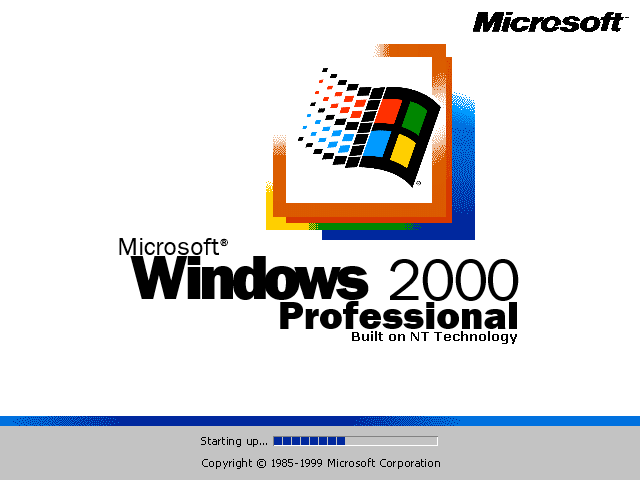
What is the point of this font? Sure, it's obviously been meticulously copied, but really, what can this do. It's not original, Tahoma comes with Windows for free, and can even be freely downloaded from Ubuntu repositories (although Ascender sells it too, derp). Not trying to be mean, but please hide this.
While this certainly isn't pushing the bounds of creativity, the 1,460 characters shows a high level of dedication. :)
The creator of this appears to be a young fontstructor. Copying a font is a great way to learn the ins and outs of creating your own. Discovering what works, what doesn't, etc.
Keep working...
@Umbreon126 // Wait…can't ETHproductions do whatever they want? I'm guessing that this wasn't meant to be used in place of Tahoma, and that it was just an exercise in patience and technique. What's more, I am extremely curious as to why it would matter to you if they hid it or not. It's not harming anyone…
It's a great work to me. 10/10.
Thank you for your encouragement, aphoria, demonics, and elmoyenique. I just started fontstructing less than a month ago. I’m really interested in pixel fonts, and copying is good practice for beginners at almost anything, so I decided to try it here. Hopefully I’ll be able to create my own pixel fonts soon.
Any bold?
This is so cool! 11/10! I like what you did there!
I love this! It has such a different feel from full-pixel Tahoma.
I feel good looking at this font :)
This is actually incredibly helpful. I'm trying to recreate Windows XP in a browser to the best of my ability (i wanted a cool homepage), and the default icon font is a non anti-aliased version of Tahoma. Unfortunately, you can't disable anti-aliasing very easily in browsers, but this looks practically identical to the original font. Thank you so much!
Thanks for posting this, now i can use it for my video editing lol
The font for the Windows 2000 startup bar text:
Not only the startup screen but the font is broadly used in the operating system. (replying to the person above)
Well, Houl, remember the Windows XP aliased version of Tahoma? That is a replication for it.
fs Tahoma 8pxby ETHproductions